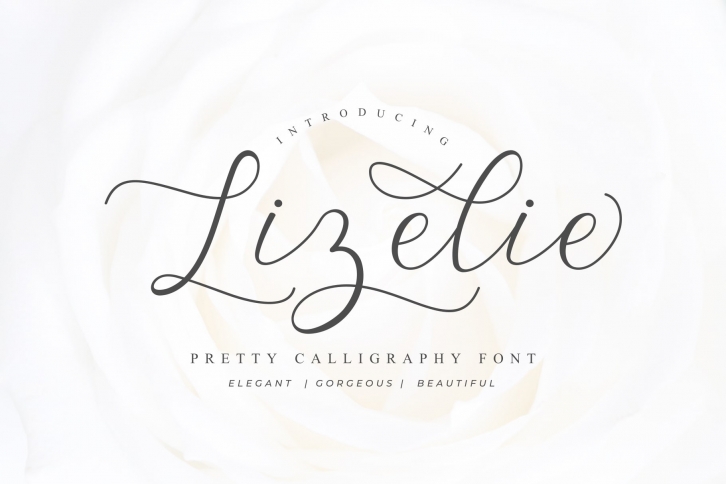
Lizelie Calligraphy font Download
Lizelie Calligraphy is a gorgeous font that was realeased on November 20, 2019. The font can be used in many style contexts and design environments. Perfect for invitations, magazines, websites, logos, and more! It was designed by JavaPep and the file size is 10.43 MB. Thanks for checking out this font!